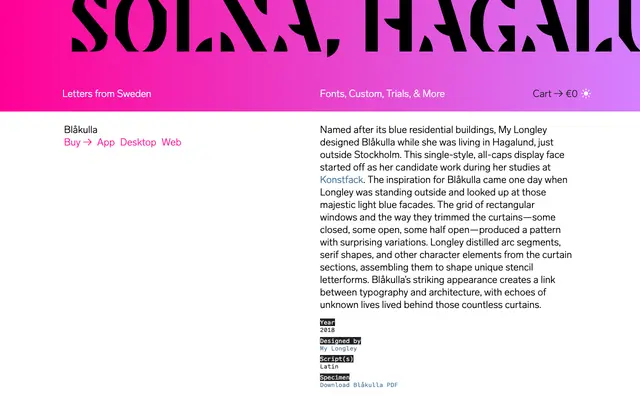
Blåkulla
Letters from Sweden · My Longley · 2018
A single-style all-caps stencil display face by My Longley, its letterforms assembled from the curtain patterns observed in the blue-façaded residential blocks of Hagalund, Stockholm.
Designed by My Longley as her degree work at Konstfack, the typeface distils arc segments and serif shapes directly from the varied curtain arrangements seen in Hagalund's rectangular windows. The result is a stencil display face where each letter carries an architectural logic, the open and closed curtain sections producing a formal system that feels both found and invented. A single weight covers a broad Latin character set including extended European accents, making it practically usable despite its highly particular origin.
An all-caps, single-style stencil display face with letterforms derived from architectural observation; the construction method and decorative intent place it firmly in the display category.